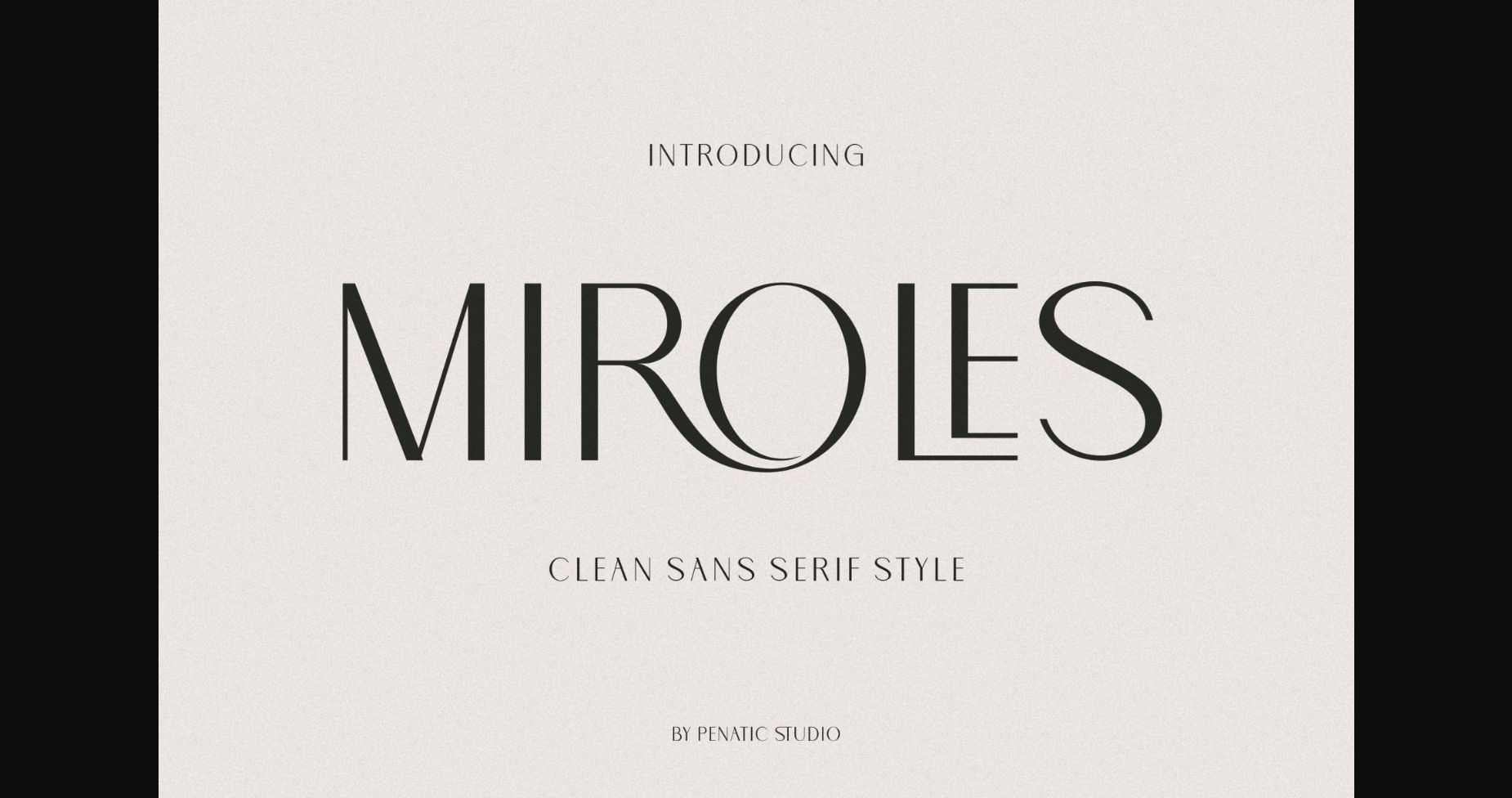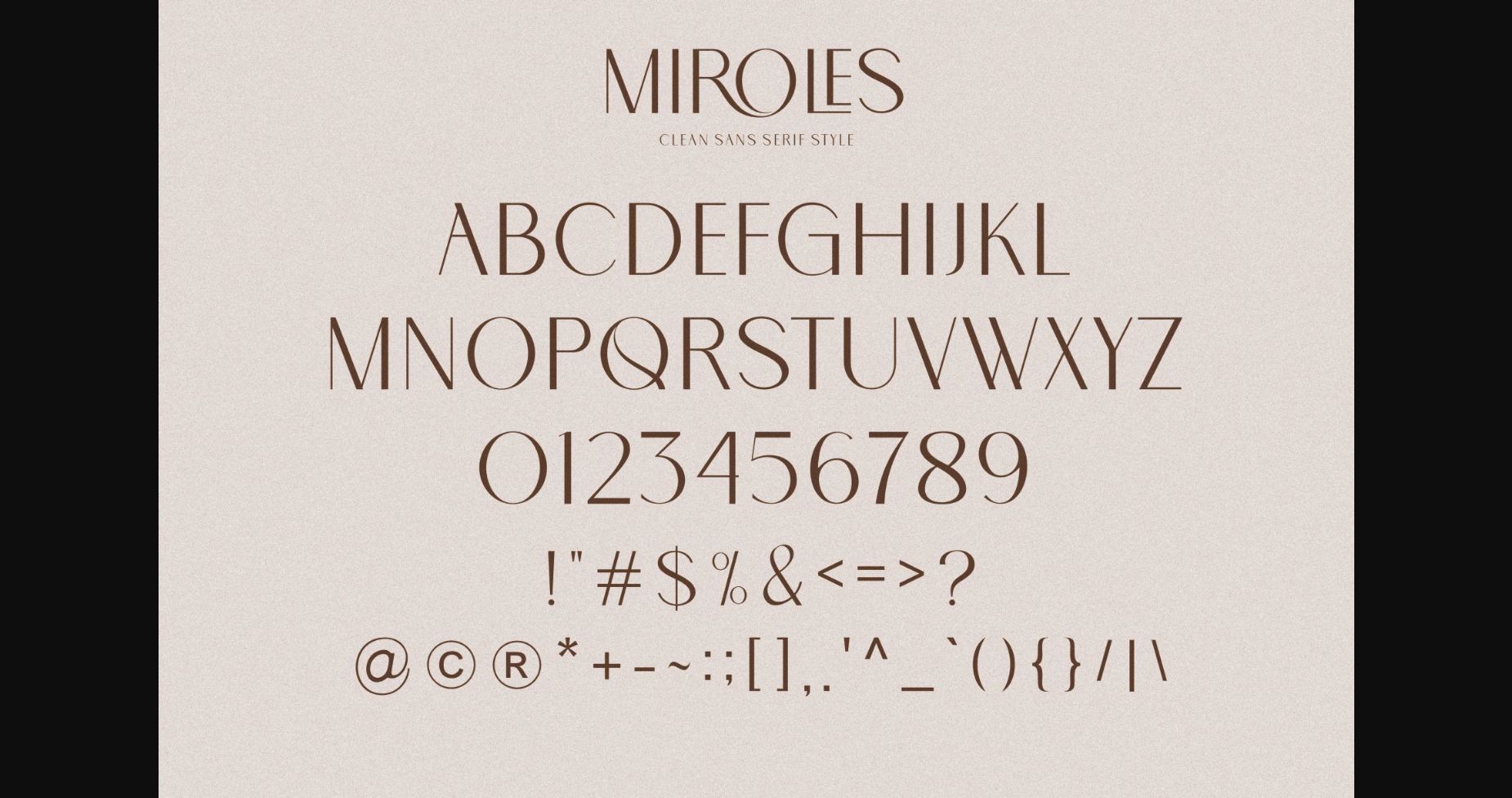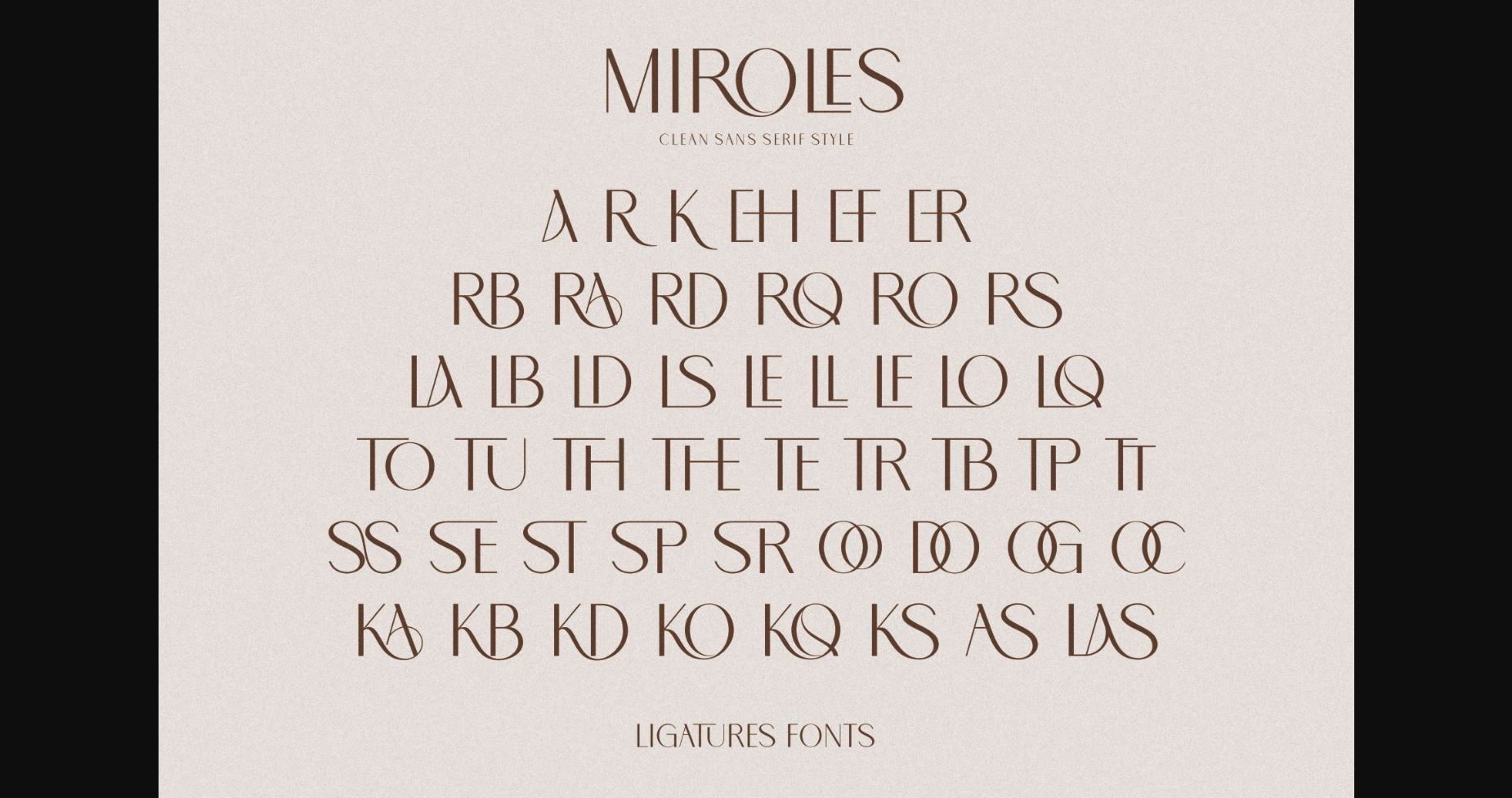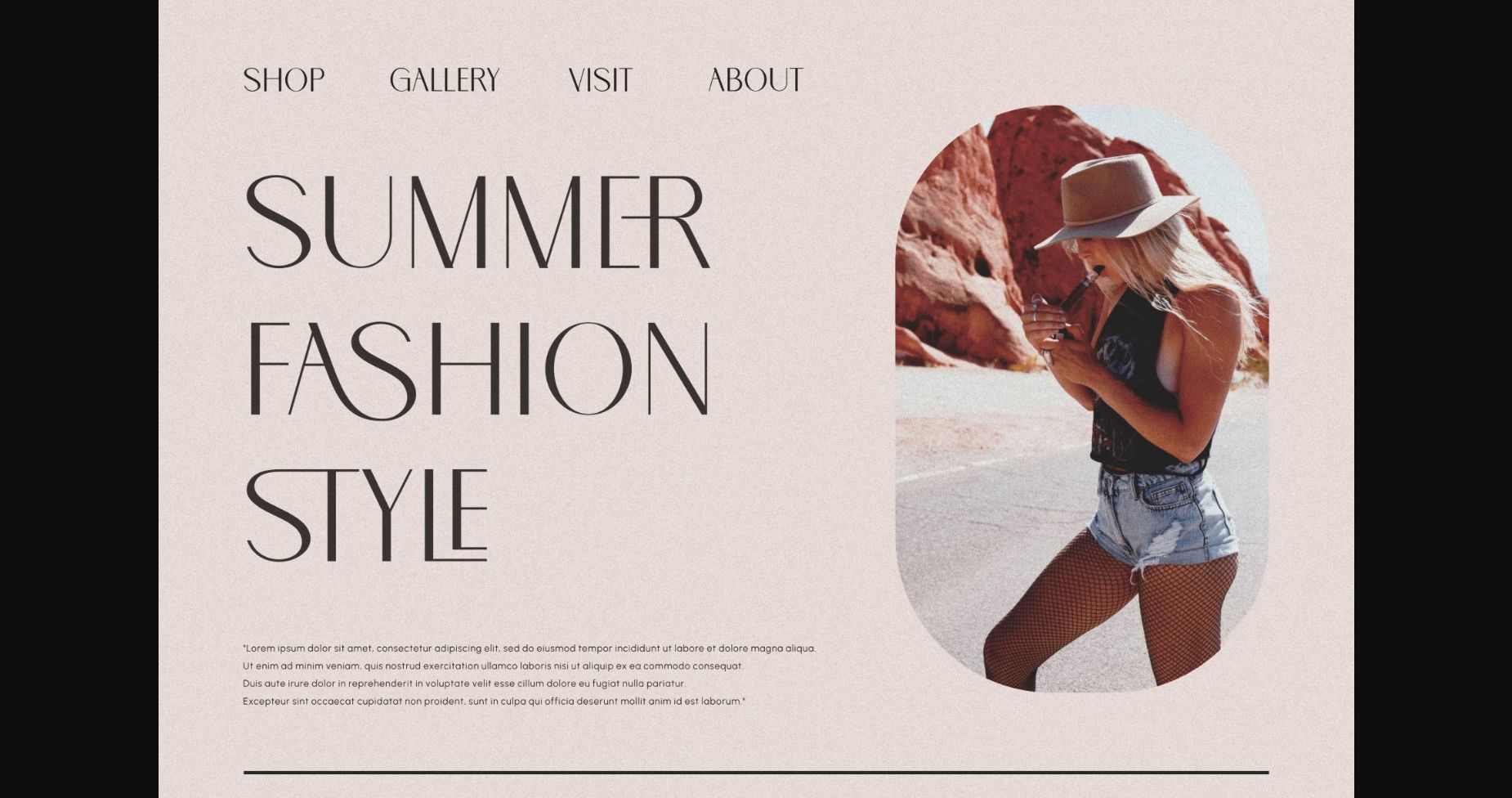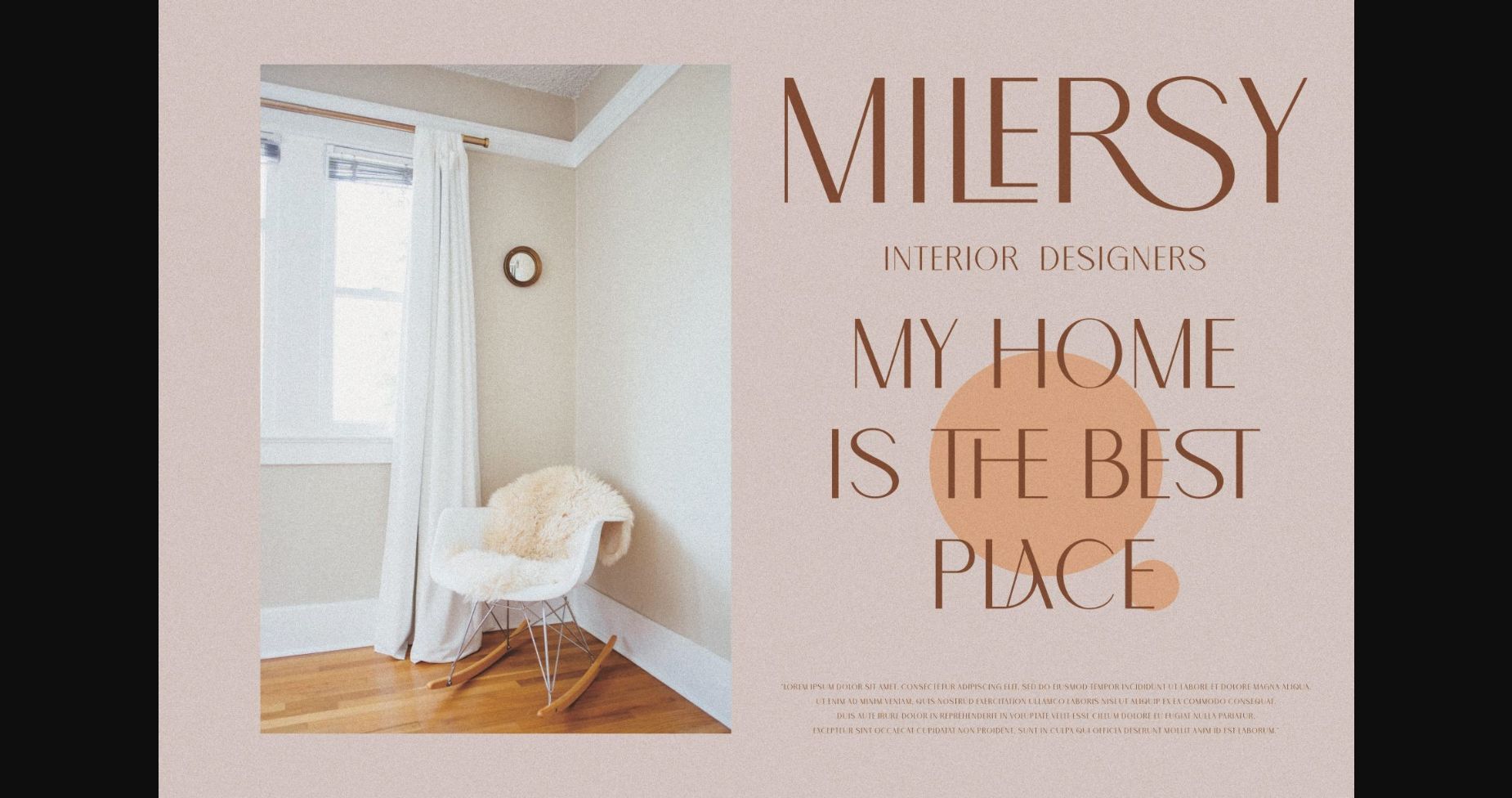
About Miroles Font
MIROLES Beautiful, clean, neat San Serif font, lots of ligatures and alternative letters. It will make your work better for sure. Easy to use and very suitable for all your work in stringing letters.